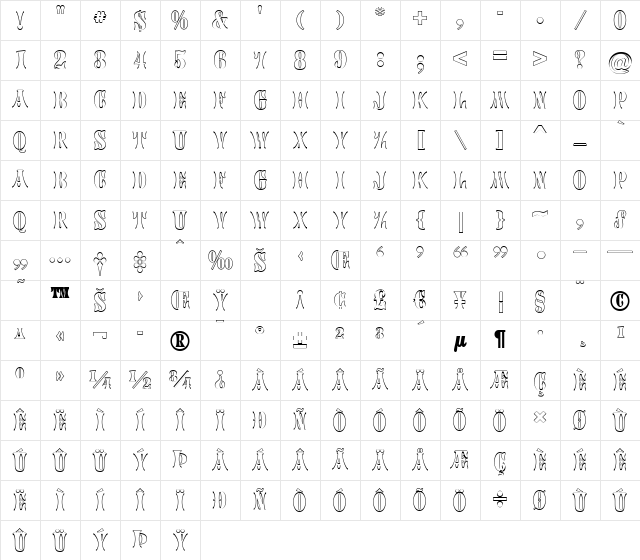
a_CalyxOtl Regular
Designer: W.Chufarofsky & M.Slutsker
Design Context for a_CalyxOtl
a_CalyxOtl is a composed and adaptable typeface that performs quietly and consistently across a wide range of design contexts.
Pro Tip: Use a_CalyxOtl in both headline and body roles to test its range before committing to a single application.